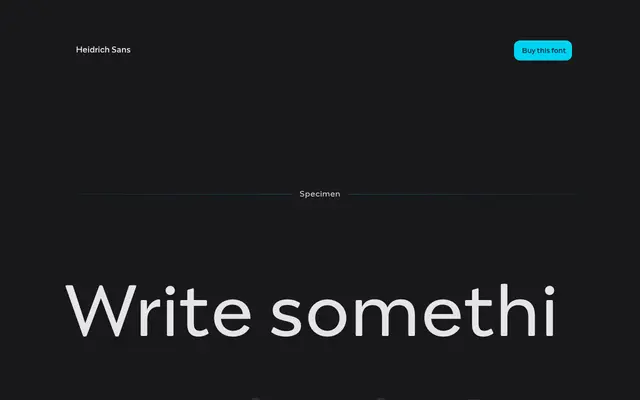
Heidrich Sans
An elegant sans-serif by Mateusz Machalski, developed from research into Andrzej Heidrich's Bona typeface and the broader typographic legacy of one of Poland's foremost graphic designers.
Rooted in Machalski's 2017 digitisation work on Bona Nova, the family draws on original sketches by Andrzej Heidrich and archival research conducted with Leszek Bielski. The six-style family spans Regular, Bold and ExtraBold, each with a companion italic. It reads as a considered tribute to a significant figure in Polish graphic design rather than a generic revival.
Described as an elegant sans-serif inspired by sketches for the Bona typeface and the broader typographic work of Andrzej Heidrich, suggesting a humanist rather than geometric or grotesque approach.